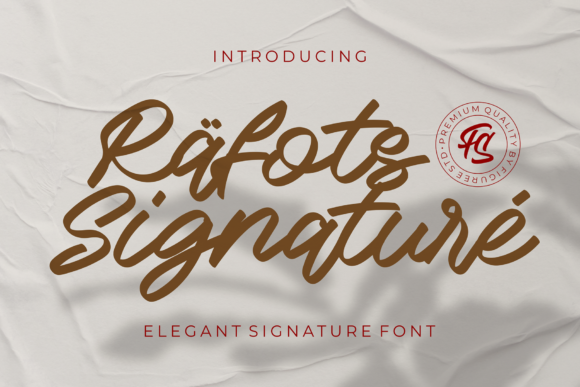
Rafots Signature Font
Introducing Rafots Signature Font - A Journey Through Elegance and Style in Script Typography
Embark on a captivating journey into the realm of typography with Rafots Signature Font, the epitome of grace and sophistication in script lettering. Created by the visionary designers at Figuree Studio, this handcrafted font family exudes a delicate allure that will elevate your creative projects to new heights of beauty. With its sweeping strokes and enchanting curves, Rafots Signature Font will add an unforgettable touch of elegance to your designs, leaving a lasting impression on your audience.
Unleash the Creative Potential Within Your Projects
Rafots Signature Font is a versatile masterpiece, perfectly suited for a myriad of creative endeavors. Whether you're designing logos that demand attention, crafting branding projects that exude professionalism, or creating labels that evoke a sense of luxury, this font will effortlessly transform your vision into reality. Its timeless charm adds a touch of sophistication to photography, making your images come alive with a captivating narrative. Use Rafots Signature Font to create elegant watermarks that protect your work while enhancing its visual appeal. Special events will take on a new level of enchantment when adorned with this font, leaving an indelible mark on the memories of your guests.
Experience the Beauty of Script Typography
Rafots Signature Font draws inspiration from the timeless art of calligraphy, capturing the essence of handwritten elegance. Each character is meticulously crafted to embody the natural flow and grace of cursive writing, resulting in a font that is both aesthetically pleasing and highly legible. Its delicate strokes evoke a sense of intimacy and personal connection, making it an ideal choice for projects that aim to convey a heartfelt message. Whether you're designing wedding invitations, creating personalized greeting cards, or crafting social media posts that resonate with your audience, Rafots Signature Font will elevate your words with its inherent charm and sophistication.